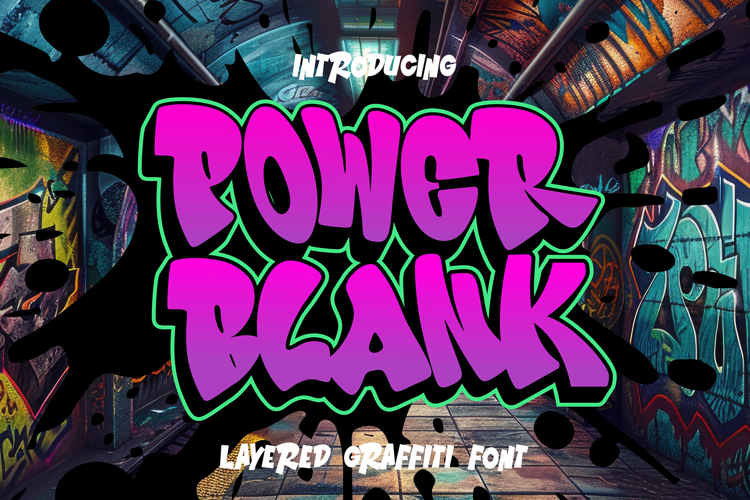
Power Blank - Layered Graffiti Font
Power Blank – Layered Graffiti Font is a bold typeface designed with uppercase-only characters to deliver maximum impact. Every letter carries the raw energy of graffiti, making it perfect for creating attention-grabbing posters, striking headlines, and memorable branding.
The layered style gives you creative depth, while the included shadow version adds extra dimension for more dynamic designs. Whether you’re working on packaging, digital media, or bold promotional visuals, Power Blank graffiti font makes your work stand out.
Key Features
- Uppercase-only characters for strong and impactful typography
- Layered graffiti style with shadow option for depth
- Ideal for branding, posters, packaging, and bold headlines
Why Designers Love It Designers choose Power Blank font because its uppercase-only structure ensures boldness in every word. The layered and shadow versions allow for flexible design possibilities, from clean graffiti effects to textured, dimensional visuals. It’s straightforward, versatile, and instantly adds urban character to any project.
Final Thoughts If you’re looking for a graffiti font that is bold, uppercase-only, and layered for maximum creativity, Power Blank – Layered Graffiti Font is the right choice. With its unique style and powerful presence, it’s a font that transforms ordinary text into unforgettable design statements.